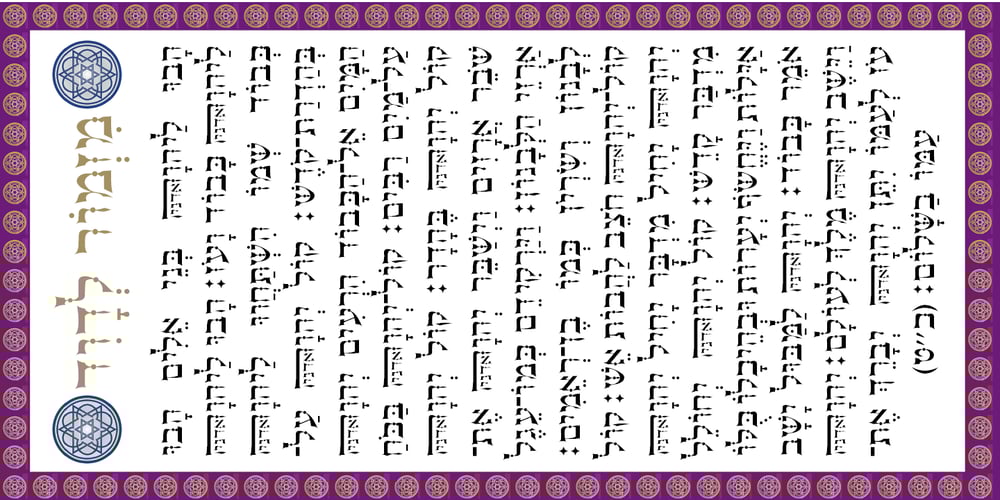
Hebrew Dot II
Hebrew Dot II font
Hebrew Dot II Font Family was designed by Sami Artur Mandelbaum and published by Samtype. Hebrew Dot II contains 1 styles and family package options. Beautiful font to use in Book covers and Posters.